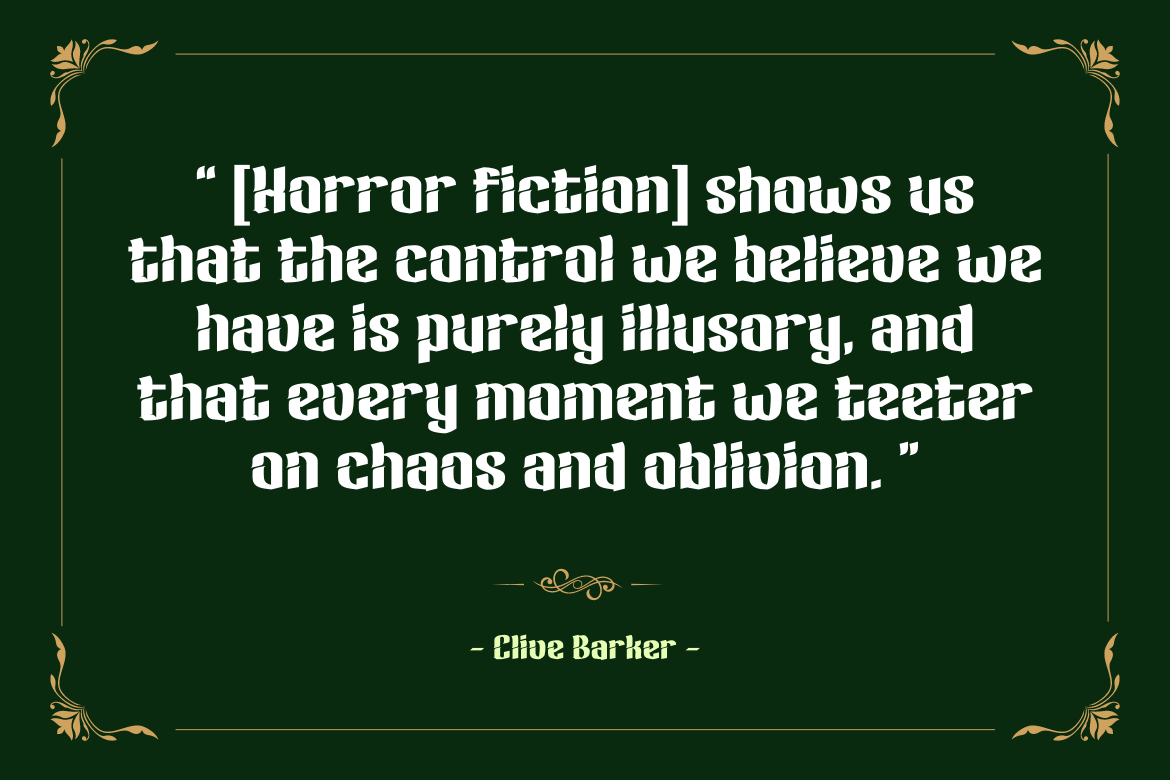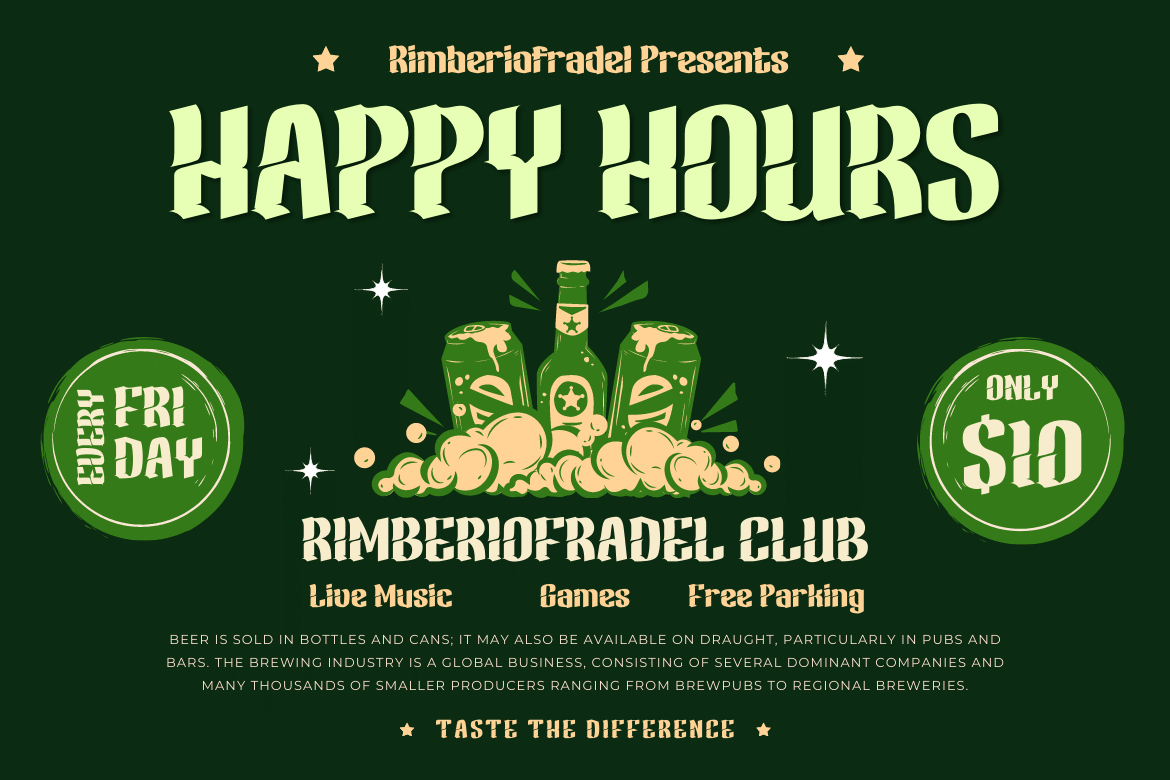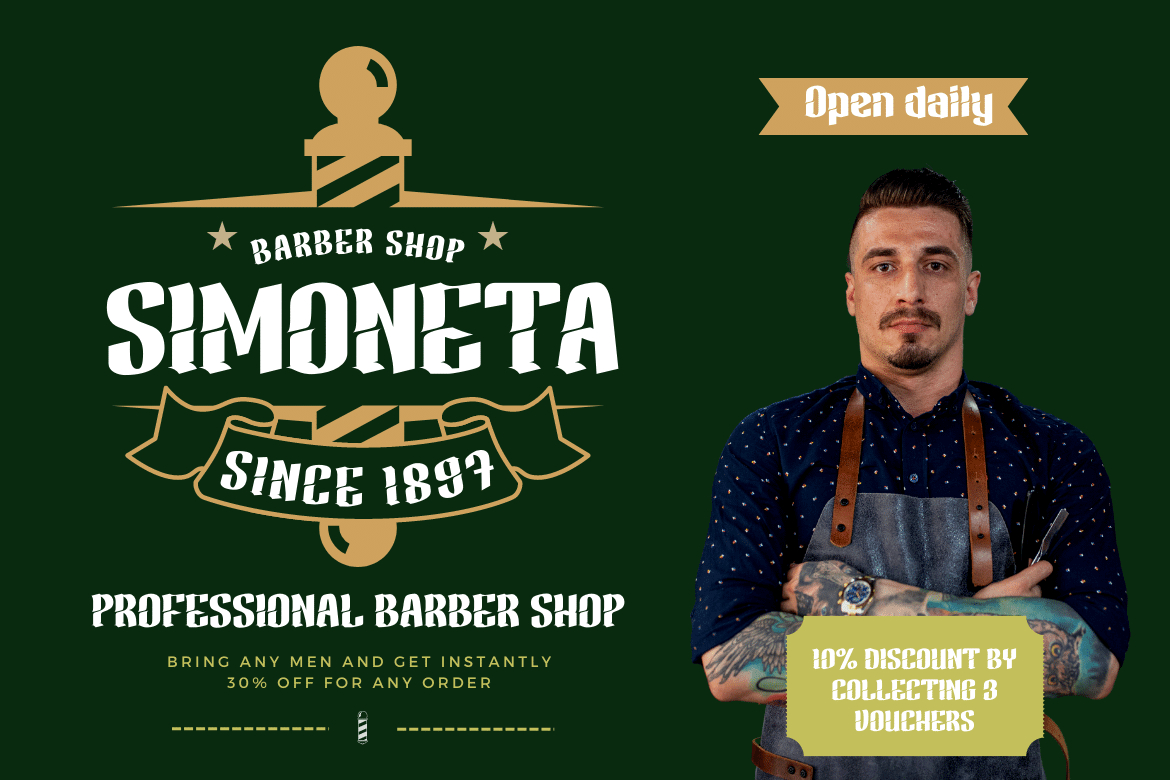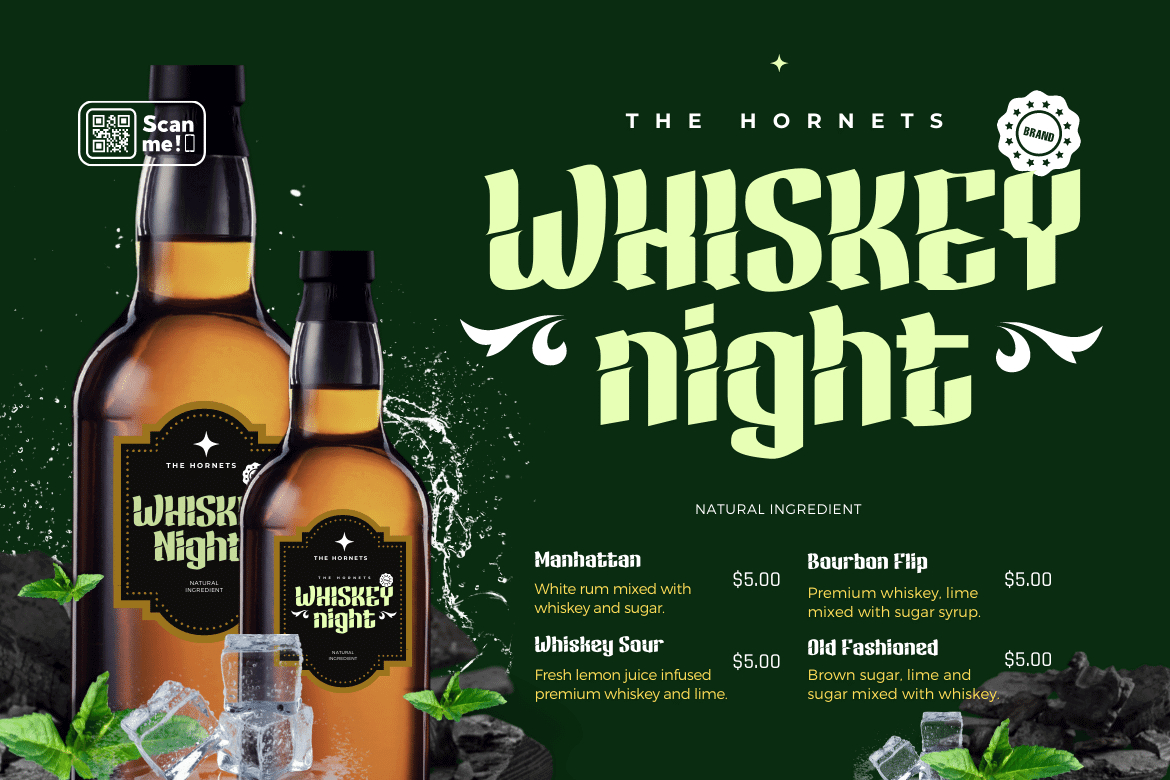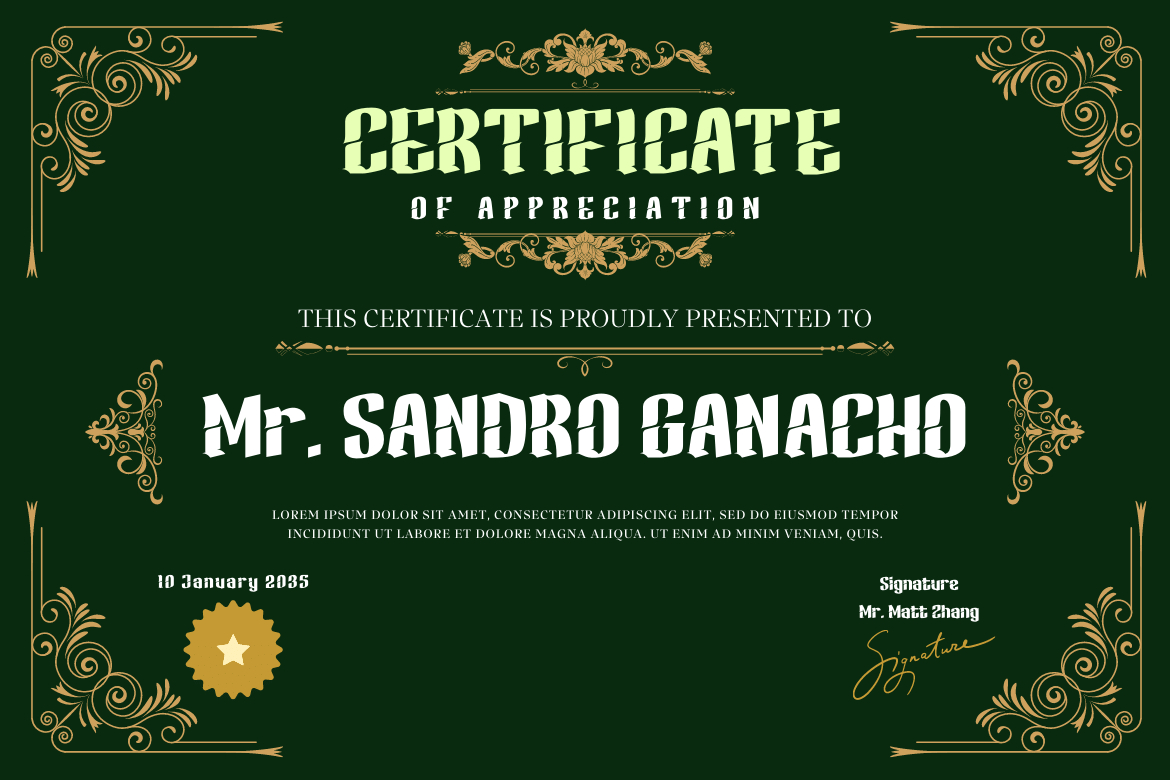
About Kinure Font
Kinure is a cool and stylish blackletter font. This font evokes a strong, confident personality. Whether you’re creating a vintage-inspired project or want to add a bold classic look to your visuals, this font is a perfect choice.